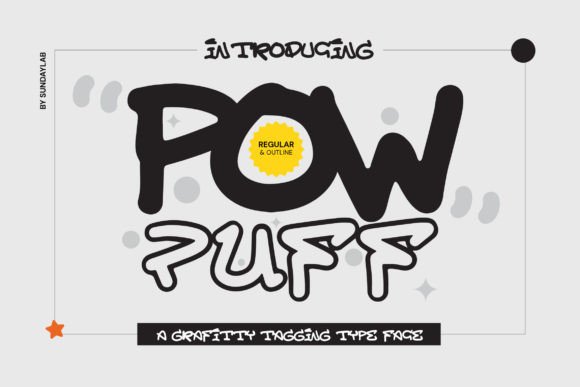
Powpuff is a bold and edgy graffiti font that exudes energy and excitement. Its thick, uneven strokes and drips give it a street-art feel, while its clean lines and rounded edges make it playful and fun. Whether you're designing a logo, creating social media graphics, or working on a poster, Powpuff adds a unique visual punch. If you're looking for a free Display font with a strong personality, the Powpuff free download is a must-have in your font collection.
What is Powpuff?
Powpuff is a standout Display font that blends urban aesthetics with a modern twist. It's ideal for projects that need a high-impact look without sacrificing readability. The font's irregular strokes and dripping effects create a dynamic, hand-drawn feel, making it perfect for creative and expressive designs. For designers seeking a fresh alternative to traditional fonts, the Powpuff font download offers an exciting option that stands out in any layout.
What sets Powpuff apart is its ability to balance raw energy with structured design. Unlike many other Display fonts that lean too heavily into one style, Powpuff combines the rebellious spirit of graffiti with the clarity of a well-crafted typeface. This makes it versatile enough for both casual and professional use. Whether you're working on a personal project or a commercial campaign, the Powpuff font download delivers a distinctive look that grabs attention.
Letterforms and Weight
The letterforms of Powpuff are intentionally irregular, mimicking the look of spray-painted text. Each character has a slightly different weight and shape, giving the font a natural, handcrafted appearance. This variation prevents the design from feeling too rigid or repetitive, which is essential for maintaining visual interest in larger blocks of text.
Spacing and Mood
Powpuff's spacing is carefully balanced to ensure legibility while still retaining its energetic vibe. The font works best when used sparingly, as its bold nature can overwhelm a design if overused. The mood it conveys is youthful, daring, and unapologetically loud—perfect for brands that want to make a statement. Compared to other Display fonts, Powpuff has a more chaotic yet refined aesthetic that feels both modern and nostalgic.
Powpuff for Logo Design
Powpuff is an excellent choice for logo design, especially for brands targeting younger audiences or those with a creative or edgy identity. Its bold and unconventional style helps logos stand out in a crowded market. Whether you're designing a music label, a streetwear brand, or a tech startup, Powpuff adds a unique flair that captures attention.
Powpuff for Branding
When it comes to branding, Powpuff brings a sense of authenticity and individuality. It’s ideal for businesses that want to convey a sense of rebellion or innovation. From packaging to promotional materials, the font adds a layer of visual storytelling that resonates with modern consumers. Using Powpuff for branding ensures your message is not only seen but remembered.
Powpuff for Wedding Invitations
While Powpuff may seem unconventional for wedding invitations, its playful and vibrant style can add a unique touch to formal events. It works well for themed weddings or couples who want to incorporate a bit of edge into their design. Pairing it with softer fonts or elegant layouts can create a balanced and visually striking invitation.
Font Pairing & Combinations
Pairing Powpuff with other fonts can enhance its impact and versatility. A common approach is to combine it with a serif font for contrast, allowing the boldness of Powpuff to shine while maintaining readability. Another effective combination is pairing it with a clean sans-serif, which balances its chaotic elements with structure.
What fonts pair well with Powpuff? Consider using it alongside a classic serif like Times New Roman or a modern sans-serif like Helvetica. These pairings help maintain visual harmony while letting Powpuff take center stage. Additionally, using it with a script font can add a decorative touch, making it ideal for headers or titles.
For a more dynamic look, try combining Powpuff with a geometric sans-serif. This creates a modern and cohesive design that still retains the energy of the original font. When experimenting with combinations, always test the fonts together to ensure they work well in context.
Ultimately, Powpuff is a powerful tool in a designer's arsenal. Whether you're looking for a premium Display font or a free Display font for Fonts, it offers a fresh and dynamic alternative to traditional typefaces. With the right approach, it can elevate any project and leave a lasting impression.